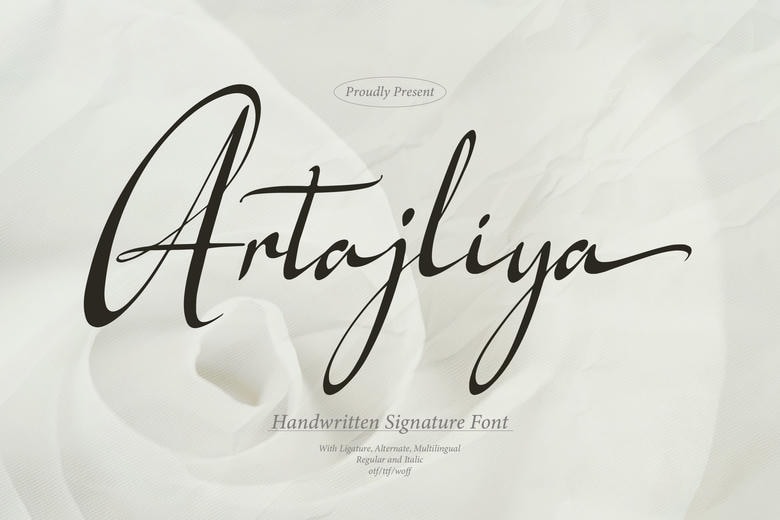
Artajliya Font
Artajliya is a handwritten signature style with elegant, flowing letters. Its design blends smooth curves with sharp angles for a stylish, artistic appearance.
Each letter connects smoothly, giving the signature a personal and unique feel. It shows individuality and creativity, helping it stand out anywhere.
Artajliya Handwritten Script Font